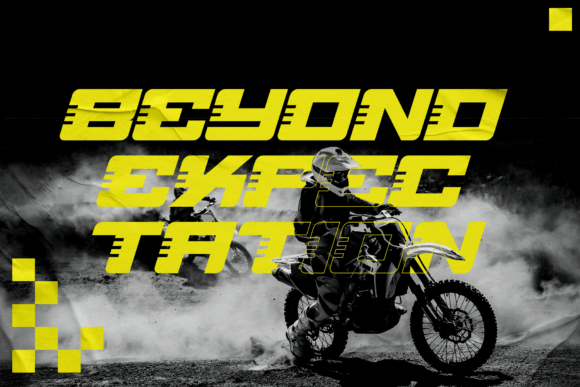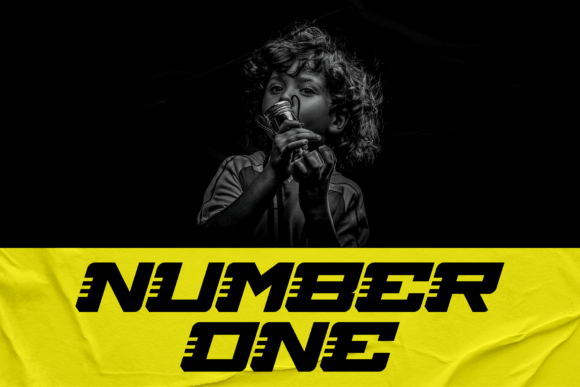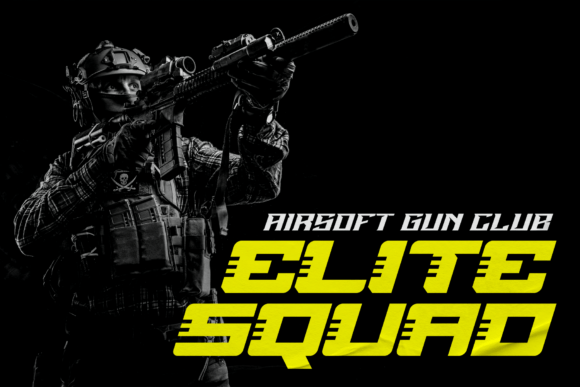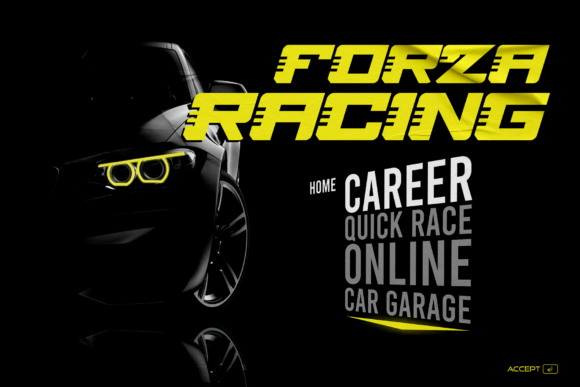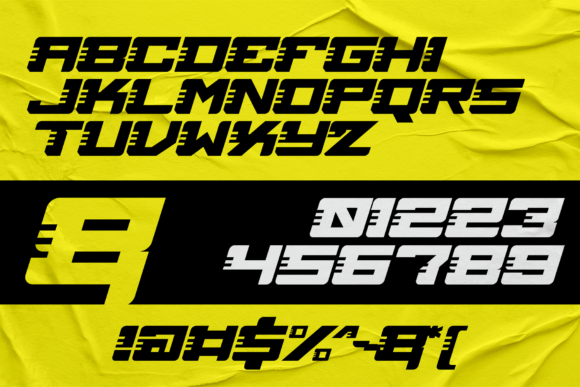
Introduction to Race Freak Font
Have you ever been in the middle of a creative project, staring at a blank screen, and suddenly an idea strikes you? You envision a bold, eye-catching headline that screams excitement and energy. For designers working on racing, sports, or automotive-related projects, that moment often comes when they discover the perfect font to capture the essence of their theme. And that’s exactly where the Race Freak Font comes in – a powerful display font that’s ready to elevate your designs.
With its high-quality design and transparent background, the Race Freak Font is a valuable addition to any designer’s toolkit. Whether you’re creating a jersey, logo, or poster, this font is sure to make your project stand out. And the best part? It’s available for free download, making it an accessible design resource for creatives of all levels.
Key Features of Race Freak Font
- Features a transparent background, allowing for easy customization and versatility
- Designed to be highly legible and visually appealing, making it perfect for use in a variety of contexts
- Unique, bold, and playful style that sets it apart from other fonts
- Perfect for use in digital design, print projects, and even web design
Honest Review: Race Freak Font
I recently stumbled upon the Race Freak Font while searching for a design resource for a creative project. The font immediately caught my attention with its unique and bold style. I was excited to see if it lived up to my expectations.
What works well: ✨ The Race Freak Font has a very high quality design, perfect for making a statement in any creative project. The font comes with a transparent background, making it easy to use and edit. It’s also a free download, which is a major plus for designers on a budget.
Overall impression: I’m impressed with the Race Freak Font, but I do wish it came with clearer licensing terms. With that said, it’s a great addition to any designer’s toolkit, especially for those working on creative projects that require a bold and eye-catching font.
- High quality design
- May not be suitable for all projects
How to Use Race Freak Font
Here are some tips for getting the most out of the Race Freak Font:
1. Use it with a transparent background to create a unique and eye-catching design.
2. Experiment with different font sizes and colors to create a visually appealing design.
3. Use it in combination with other design elements, such as images and graphics, to create a cohesive and professional design.
The Race Freak Font is perfect for:
1. Designing posters and flyers for events and promotions.
2. Creating social media graphics and advertisements.
3. Designing logos and icons for businesses and organizations.